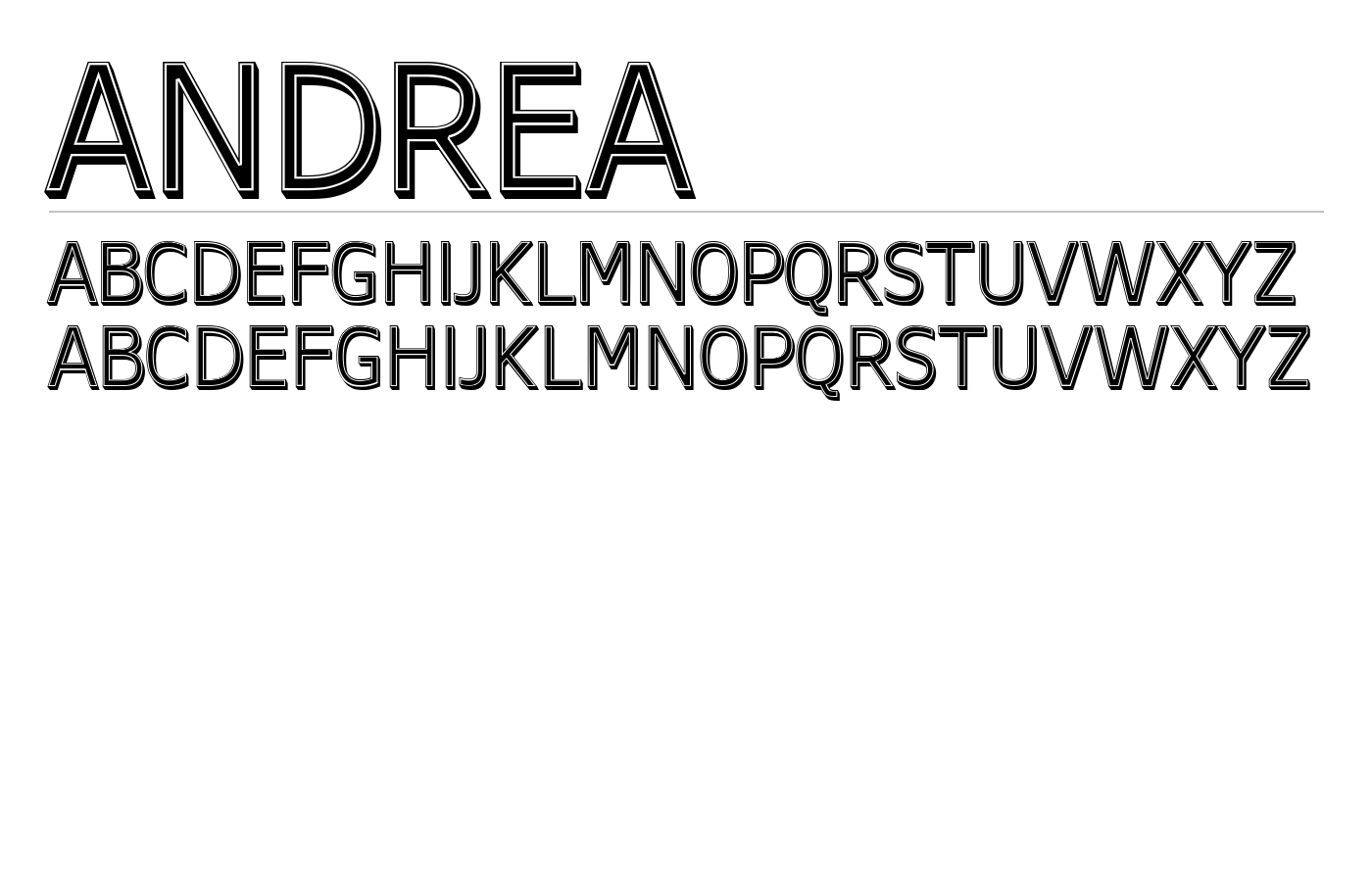
Andrea is a bold, modern sans-serif font with a distinctive layered outline style that adds depth and visual interest. Its tall, clean letterforms and solid structure make it perfect for eye-catching headlines, logos, and branding that aim to convey contemporary confidence and clarity. This font works well in design contexts where strong presence and readability are key, such as posters, advertising, and digital media.
Andrea Font
About Andrea Font